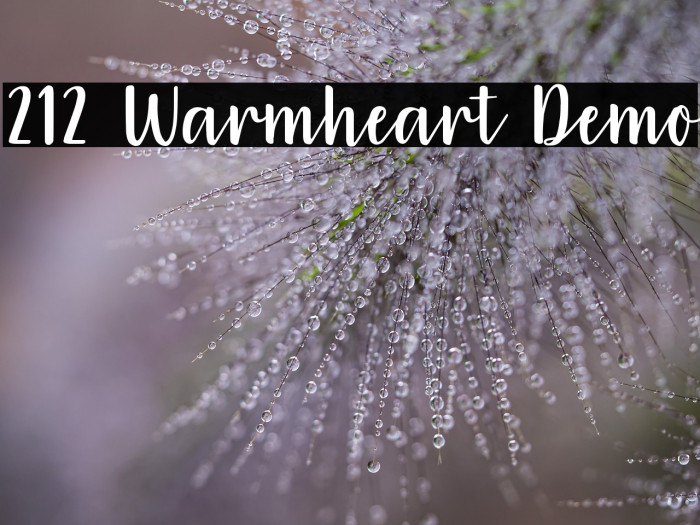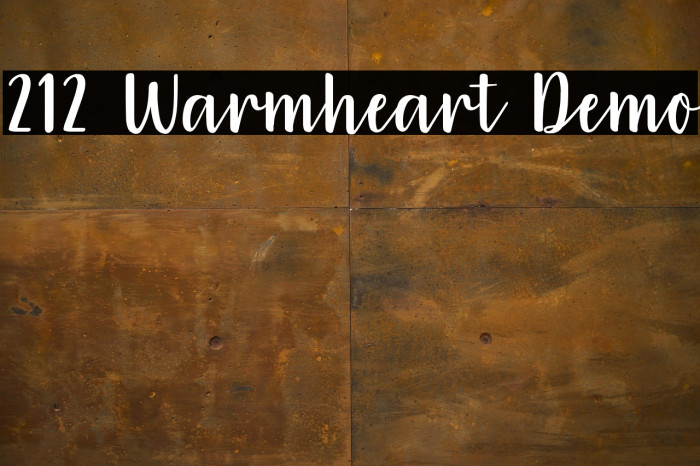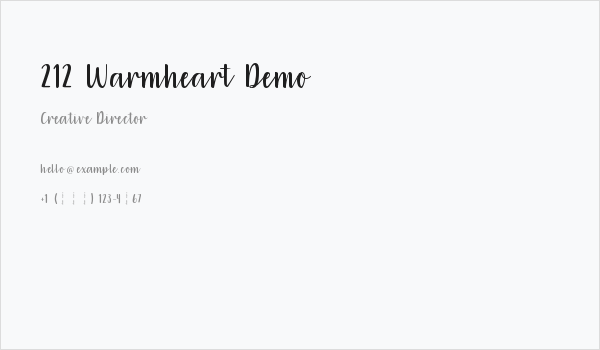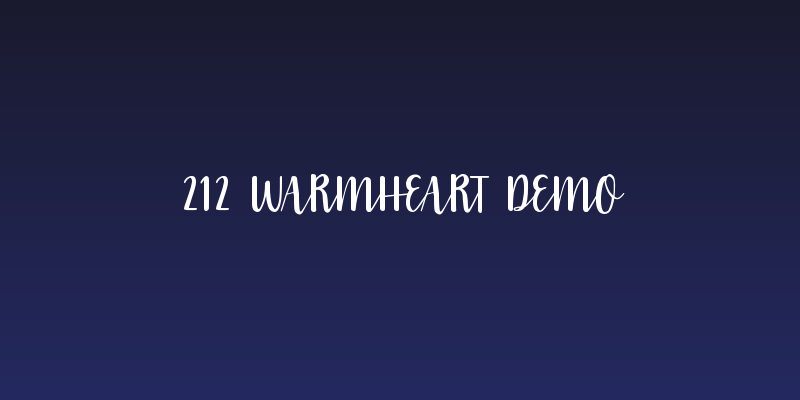
212 Warmheart Demo Font
212 Warmheart Demo Description
This font features a playful and elegant script style with a handwritten touch. The uppercase letters are tall and slightly slanted, giving a sense of movement and fluidity. The lowercase letters are more rounded and connected, enhancing the handwritten feel. The numerals are bold and slightly condensed, maintaining the playful aesthetic. Special characters are creatively designed, adding to the overall charm of the font. The strokes are consistent in width, providing a harmonious look across all characters. This font is ideal for projects that require a personal and friendly touch.